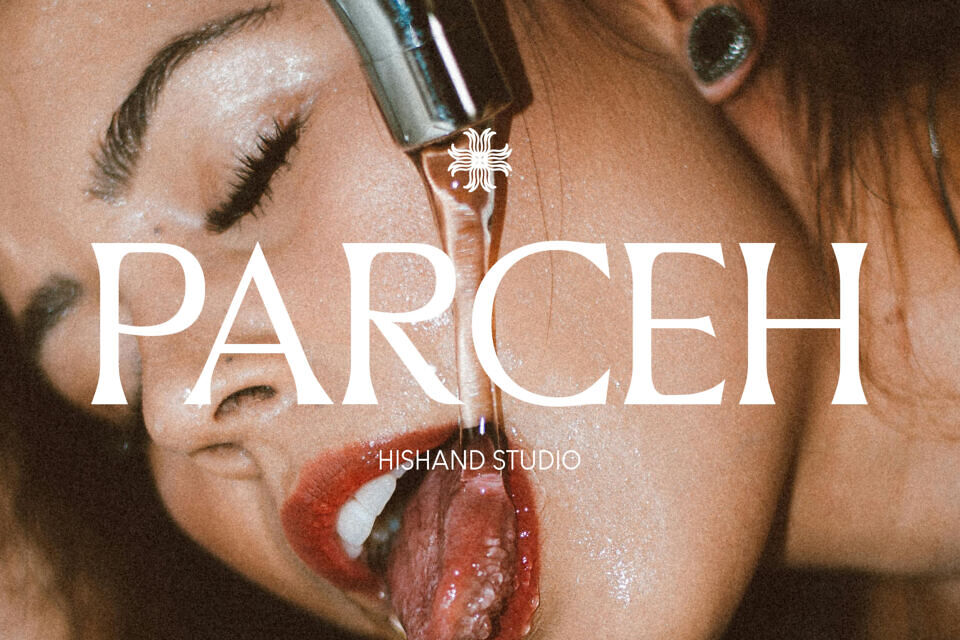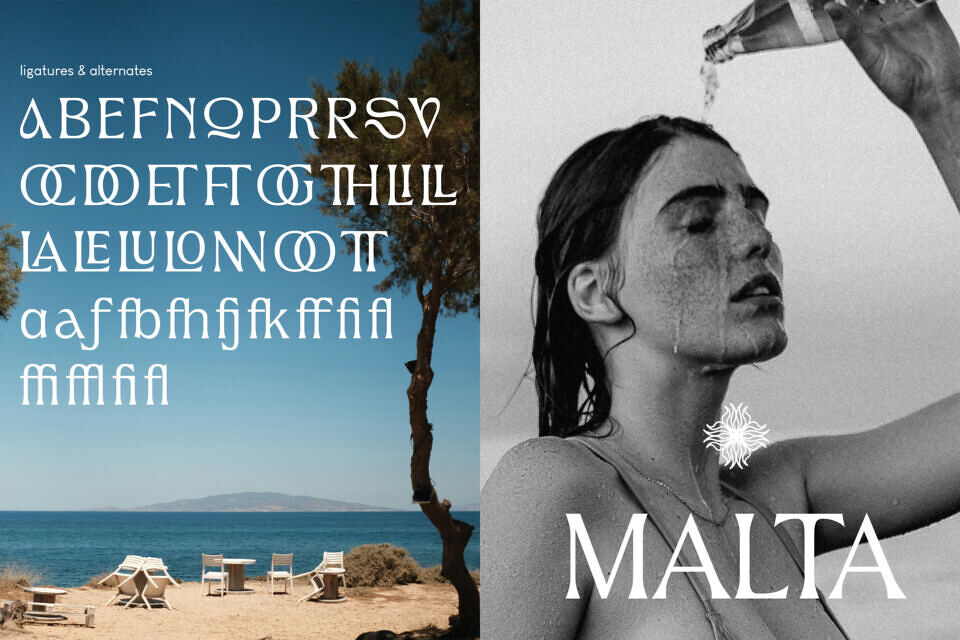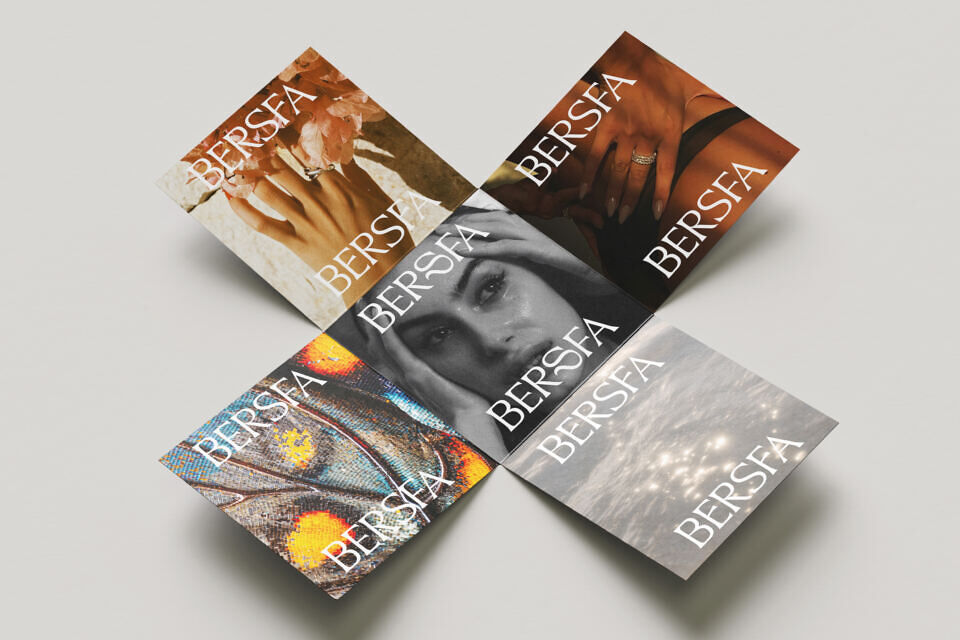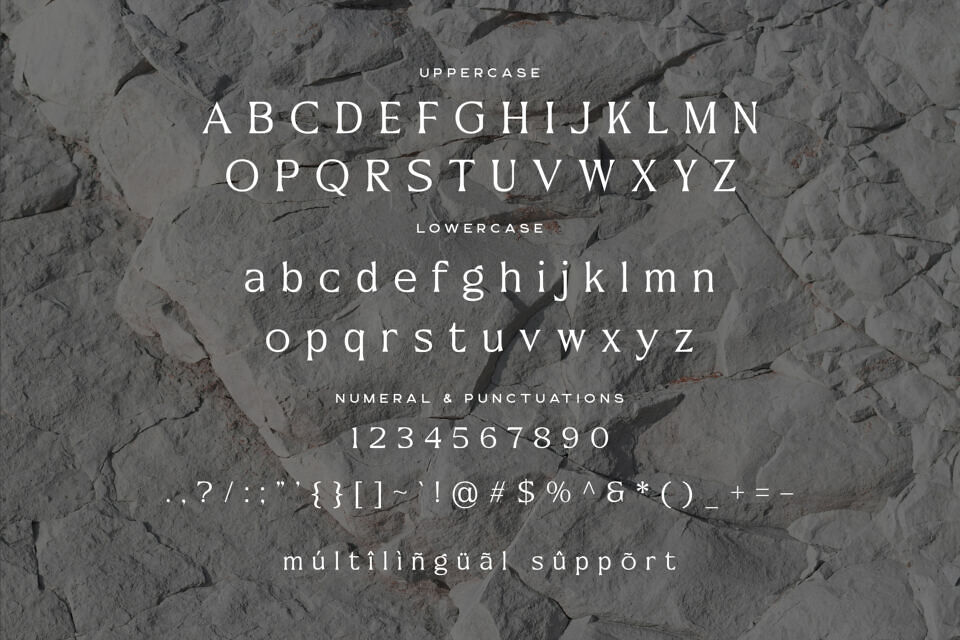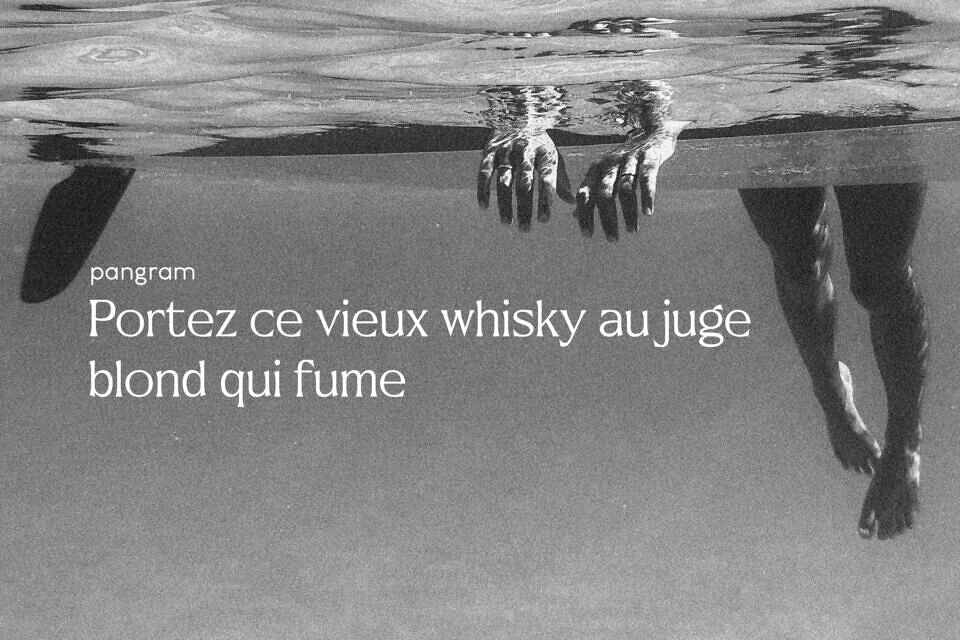
Parceh Font
Parceh is an elegant serif display font designed to bring a refined yet striking aesthetic to any creative project. With its delicate high-contrast strokes, graceful serifs, and poised proportions, Parceh Serif Font delivers a luxurious, editorial feel that exudes sophistication and timeless beauty.
It is crafted to work beautifully in headlines, fashion branding, posters, and premium packaging where elegance and style matter equally.
Designed by: Hishand Studio